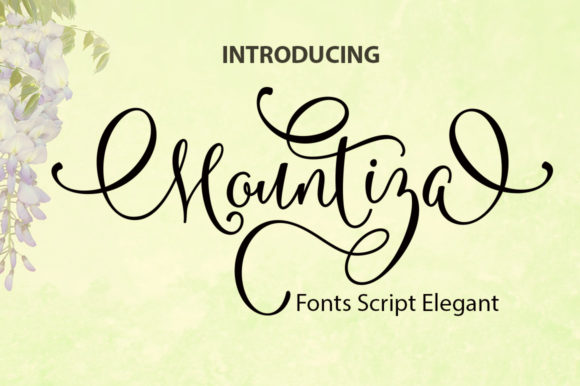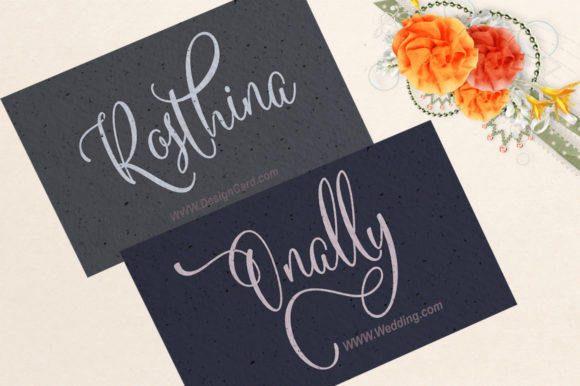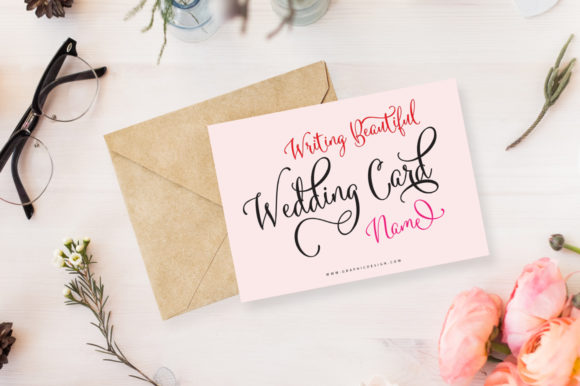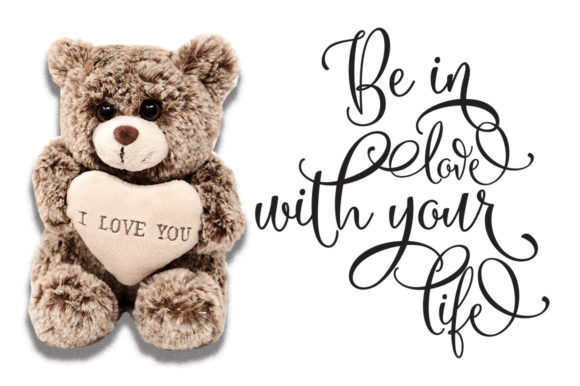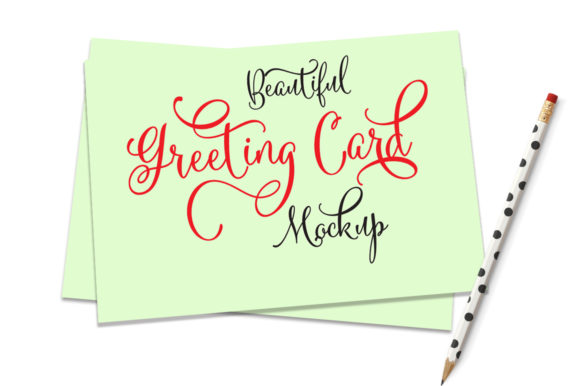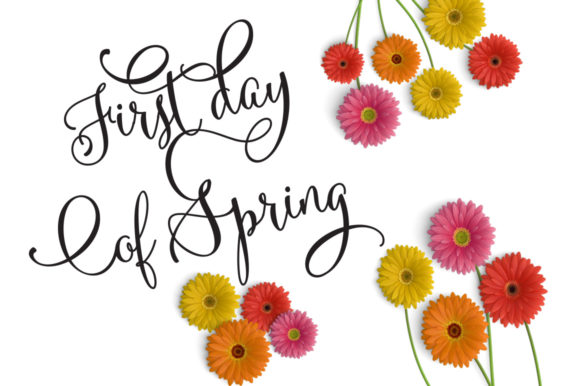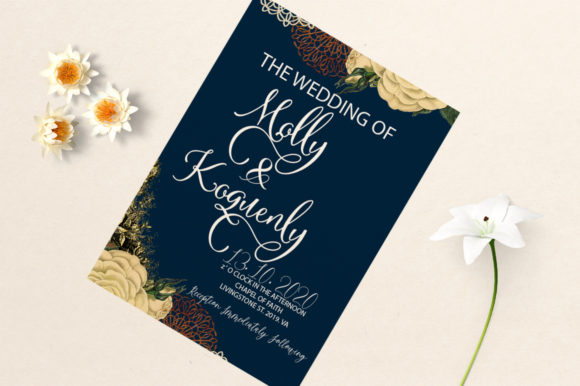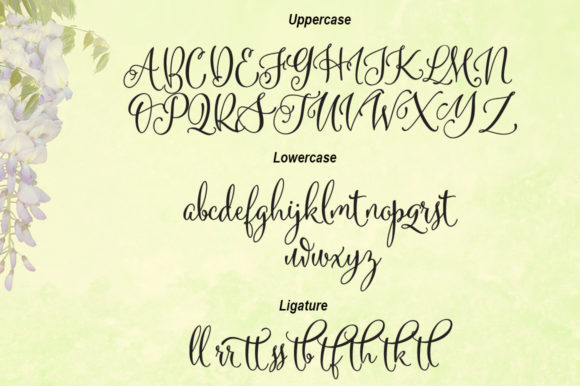
Mountiza Font
About Mountiza Font
Mountiza is a unique and whimsical handwritten font that is easy to remember. Fall in love with its adorable charm and use it for any creative project that needs a lovely feel.